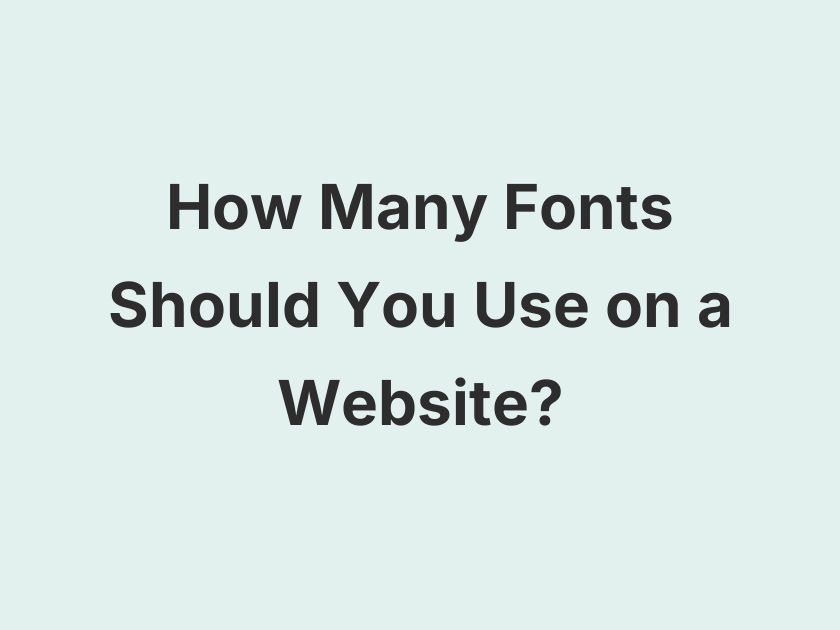
How Many Fonts Should You Use on a Website?
The honest answer to how many fonts a website needs is usually two, occasionally three: one for headings, one for body copy, and perhaps a monospace or condensed face reserved for a specific job like code snippets or navigation labels. The mistake most sites make is not choosing bad fonts, it is choosing too many good ones and letting them fight for attention. What actually matters is picking each typeface deliberately, for a clear role, from a palette that covers headline personality, comfortable body reading, and technical or space-constrained moments.
Building that palette starts with knowing your options within each role. A dependable free font library, drawn entirely from Google Fonts, makes it easy to assemble a restrained system rather than a grab bag.
Sans-serif workhorses for body text and UI
1. Inter
Designed for screens, legible at every size
Inter was built from the ground up for user interfaces, and it shows in the tall x-height and tight, consistent spacing that hold up in dense dashboards and long paragraphs alike. It has become something of a default choice for product and marketing sites, which makes it a safe, professional pick when you want typography to disappear and let the content lead. Pair it with almost any serif for headings and it will never clash.
2. Roboto
Clean geometry, built for Android and beyond
Roboto grew out of Google’s Android design language, and its mechanical skeleton with slightly humanist curves makes it feel neutral without being cold. It renders reliably across operating systems and browsers, which is exactly why so many web apps default to it for body copy and form labels. If you want a font similar to system-ui stacks but with more character control, Roboto is the obvious starting point.
3. Open Sans
Friendly, readable text for every screen
Open Sans has been a staple of web body text for over a decade because it is warm without being soft and neutral without being boring. It is a safe, low-risk choice for long-form content sites and blogs where readability trumps personality.
4. Source Sans 3
Adobe's clean answer to interface typography
Adobe’s first open-source typeface reads as understated and professional, with just enough warmth in the curves to avoid feeling corporate. It sits comfortably in paragraphs of any length and pairs naturally with heavier display faces above it.
5. IBM Plex Sans
Corporate character with real typographic depth
Commissioned as IBM’s brand typeface and released free, Plex Sans has slightly quirky details, a squared dot on the i, distinctive apertures, that give it more identity than most workhorse fonts. It works well for tech, finance, and SaaS sites that want to feel considered rather than generic.
6. Work Sans
Optimized for on-screen readability at small sizes
Work Sans was drawn with a focus on medium-size text on screens, so it holds its shape well in navigation bars and card headings. It has a slightly grotesque edge that keeps it from feeling as neutral as Helvetica-style alternatives.
7. Public Sans
Government-grade clarity for civic and utility sites
Built for the U.S. government’s design system, Public Sans favors clarity and legibility over personality, making it a strong choice for forms, documentation, and any interface where users need to move quickly and without friction.
8. Karla
A grotesque with unexpected rounded warmth
Karla mixes a fairly standard grotesque skeleton with rounded terminals that soften the overall feel, giving it a friendly quality that plain grotesques lack. It works nicely as a body font under a bolder geometric or serif headline.
9. Mulish
Minimal, low-contrast text for calm interfaces
Mulish keeps its letterforms simple and its contrast low, which makes it fade politely into the background of a page. That restraint is precisely its value on content-heavy sites where the words, not the type, should carry the message.
10. Nunito Sans
Rounded terminals, straightforward reading rhythm
The rounded corners on Nunito Sans give it a gentle, approachable tone while its proportions stay conventional enough for serious body text. It suits wellness, education, and community-oriented websites particularly well.
11. Manrope
A modern grotesque with geometric confidence
Manrope balances geometric bones with subtle humanist adjustments, landing somewhere between Inter and Poppins in feel. It reads cleanly in UI copy and holds up surprisingly well set large as a subheading.
12. Figtree
A newer grotesque built for flexible interfaces
Figtree has quickly found favor in modern web design for its evenness across weights and its slightly rounded but still businesslike character. It is a solid, current alternative for anyone tired of seeing Inter everywhere.
13. Barlow
Low-contrast strokes inspired by California license plates
Barlow’s slightly condensed, engineered feel comes from its origins in California signage type, giving it a practical, no-nonsense energy. It is versatile enough to run an entire site, from navigation to long paragraphs.
This palette gives you enough range to build that two- or three-font system many times over, whether the brief calls for editorial warmth, geometric confidence, or technical precision. Choose fewer fonts than you’re tempted to, and let each one earn its place on the page.